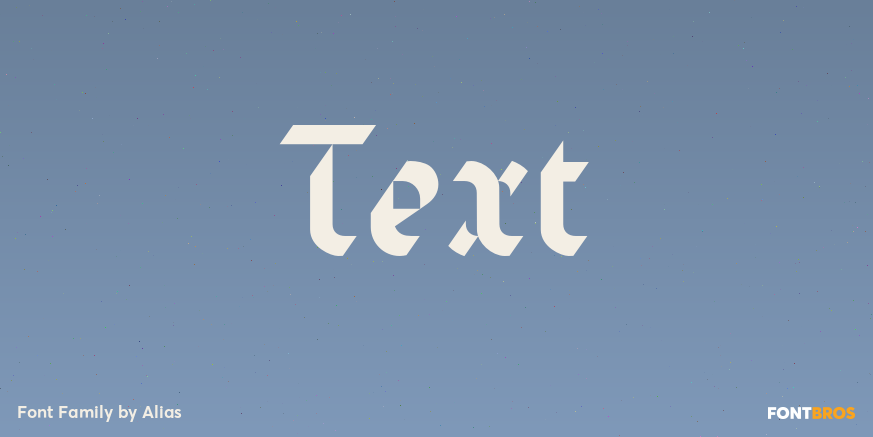
Text
About Text
Whereas blackletter types were hand written, Text letterforms are drawn using a series of graphic shapes that slot together in a series of permutations, one set for lower case and another for the upper case. As the link between the method of construction…